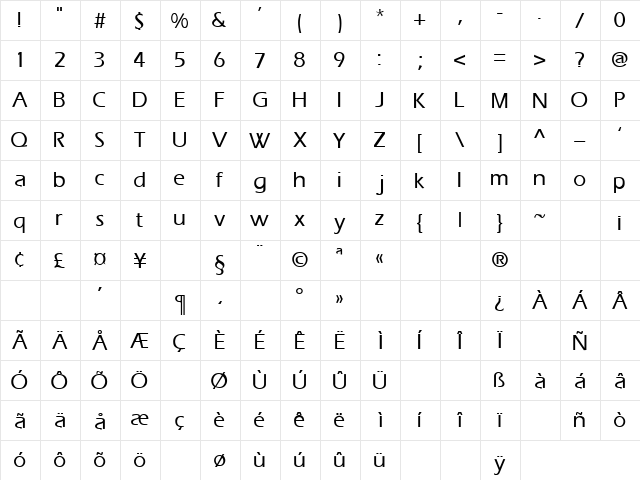
Presence 17 Regular
Presence 17 offers clean, dependable letterforms without strong stylistic allegiance, making it a practical choice for designers who need flexibility.